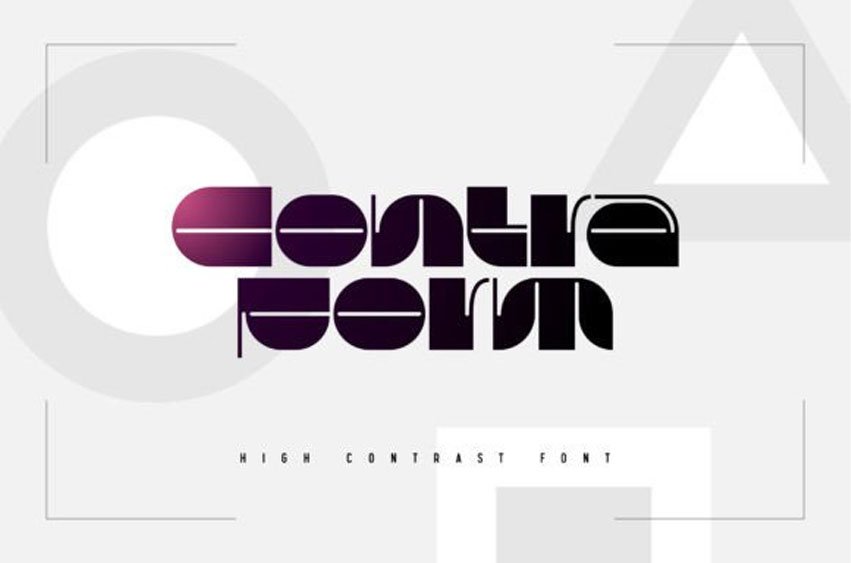
Contraform Font is a high-contrast and modern sans serif font perfect for any design you wish to create.
Add it to your logos, magazines, book titles, movie titles, album covers, T-shirts, bags, and many more, and notice how it captures everyone’s attention!